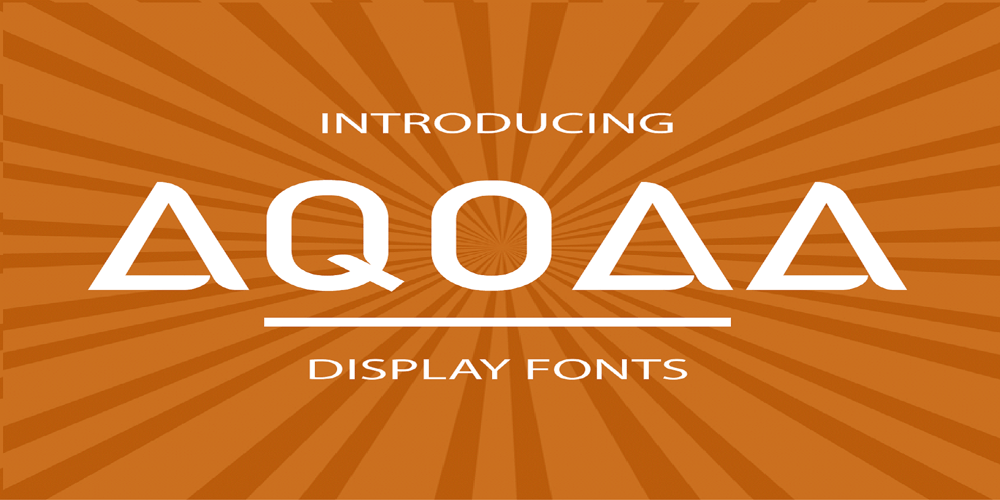
Aqoaa
Aqoaa font
Aqoaa Font Family was designed by Wildan Diantoro and published by NineteenWorks. Aqoaa contains 1 styles and family package options. Introducing our Aqoaa Display Font Collection, designed to make your headlines and titles stand out with boldness and sophistication. Each font in our collection boasts striking characteristics and distinct styles, perfect for commanding attention and making a lasting impression. Elevate your designs with our Display Font Collection and captivate your audience with every word.